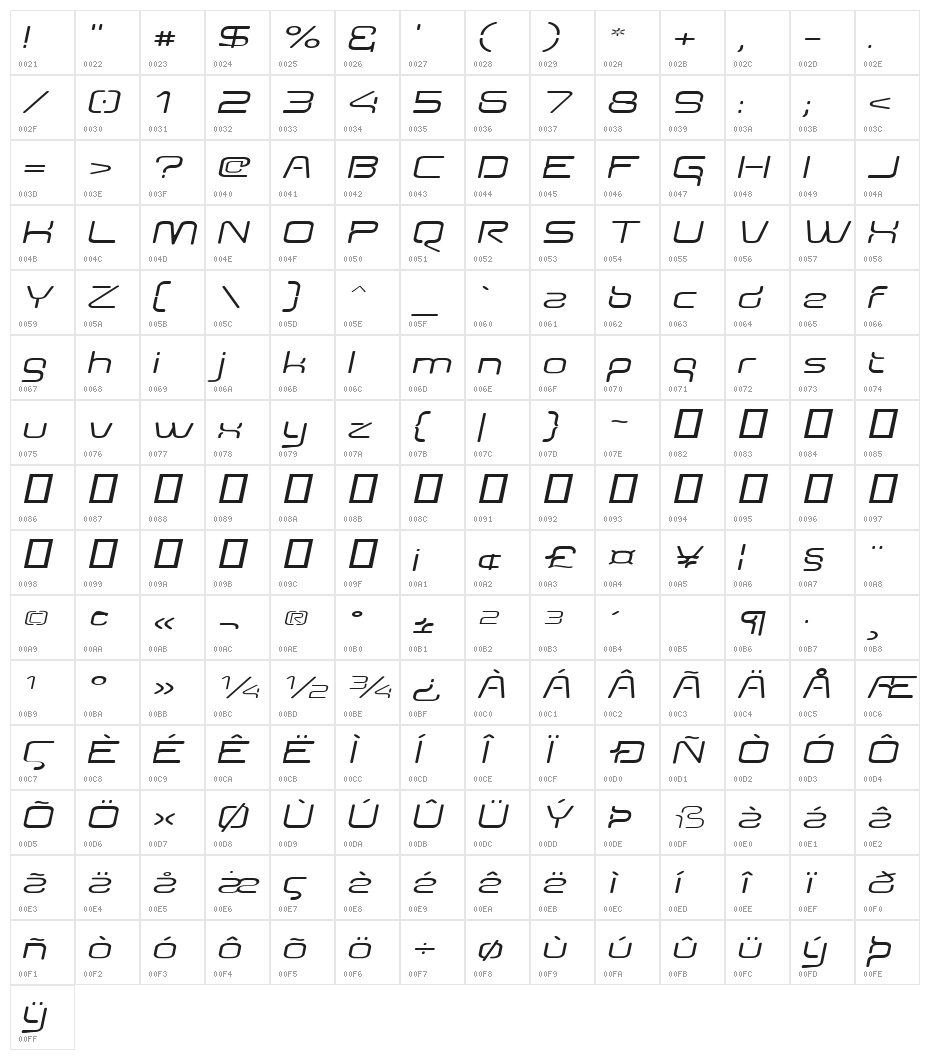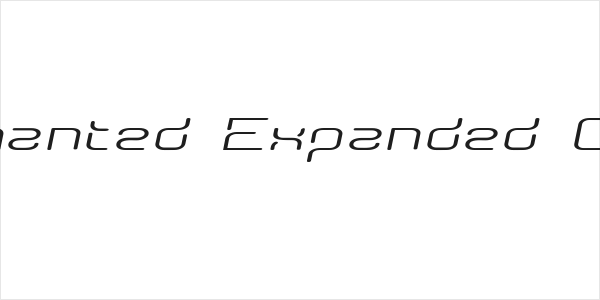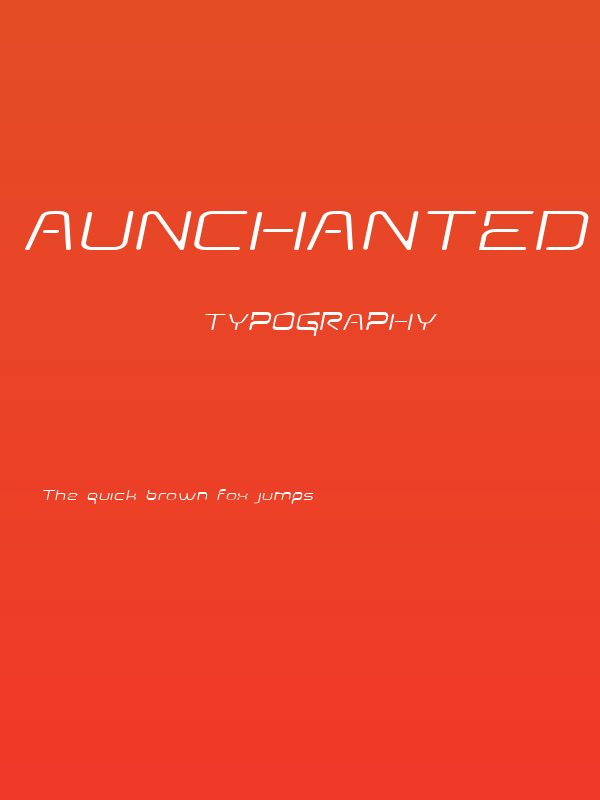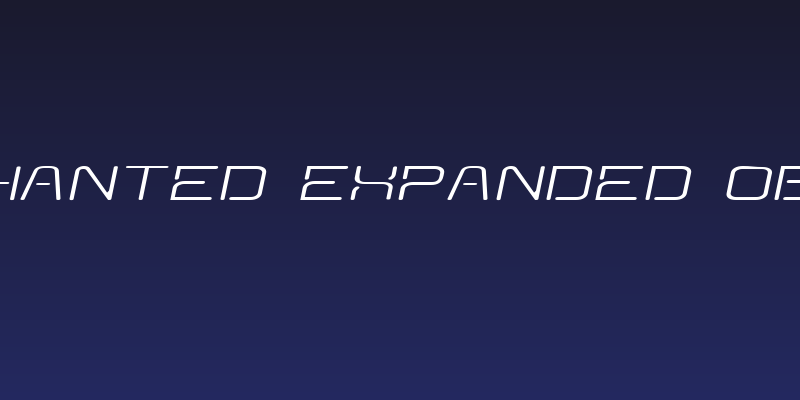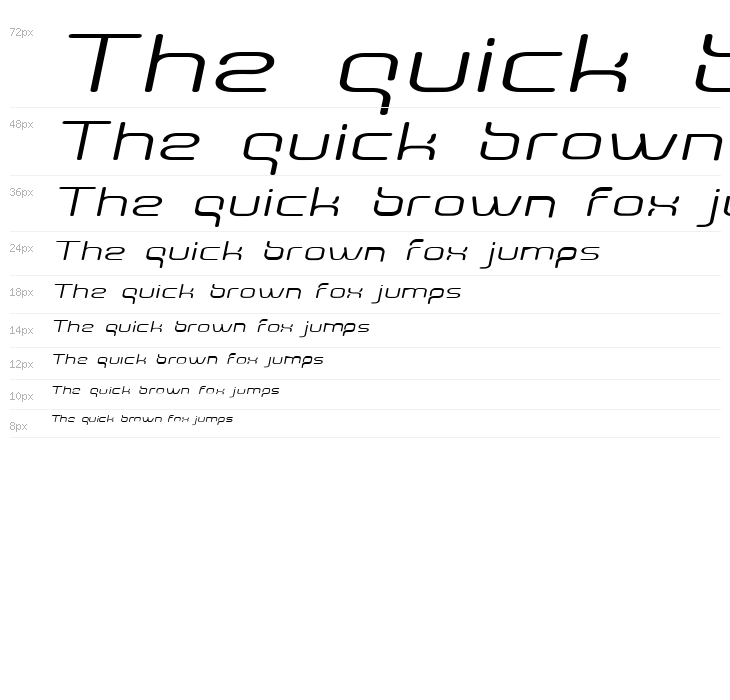
Aunchanted Expanded Oblique Font
Aunchanted Expanded Oblique Description
This font features a futuristic and sleek design with an expanded and oblique style. The characters are elongated and slightly tilted, giving a sense of motion and modernity. The strokes are consistent in width, creating a uniform appearance across all characters. The rounded edges and smooth curves contribute to its contemporary aesthetic, making it suitable for tech-related projects. The font maintains a clean and open look, ensuring readability even at smaller sizes. Its unique style is ideal for creating standout headlines or branding materials that require a modern touch.
| Proposed Projects | Ideal for tech branding, futuristic posters, modern web design, and innovative product packaging. |